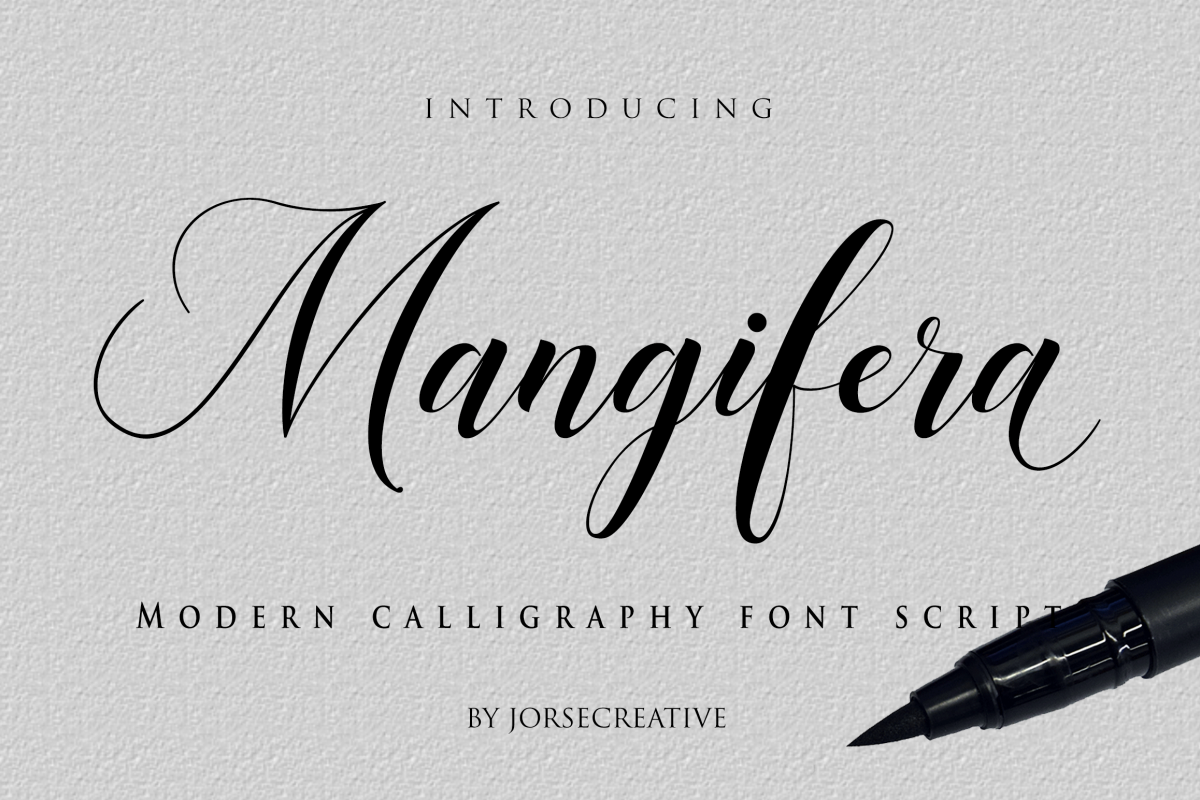
Mangifera
Mangifera Font Script
Mangifera - Font Script
Mangifera Script is a stylish calligraphy font that features a varying baseline, smooth line, classic and elegant touch. Can be used for various purposes.such as headings, signature, logos, wedding invitation, t-shirt, letterhead, signage, label, news, posters, badges etc.
Mangifera Script features 387+ glyphs and 156 alternate characters. including initial and terminal letters, alternates, ligatures and multiple language support.
The Features of this fonts is:
• Standart ligatures
• PUA Unicode (Private Use Areas)
• Swash